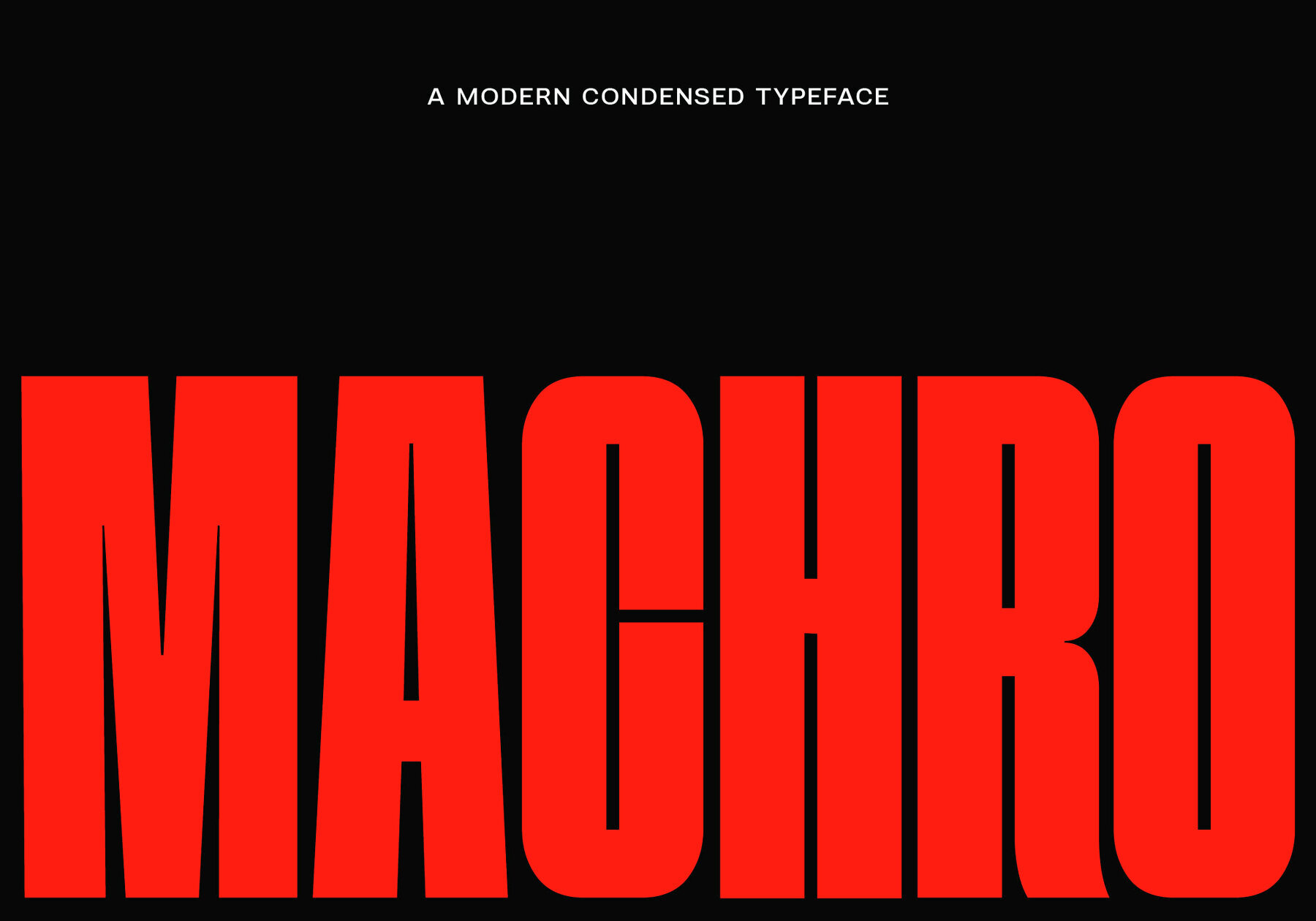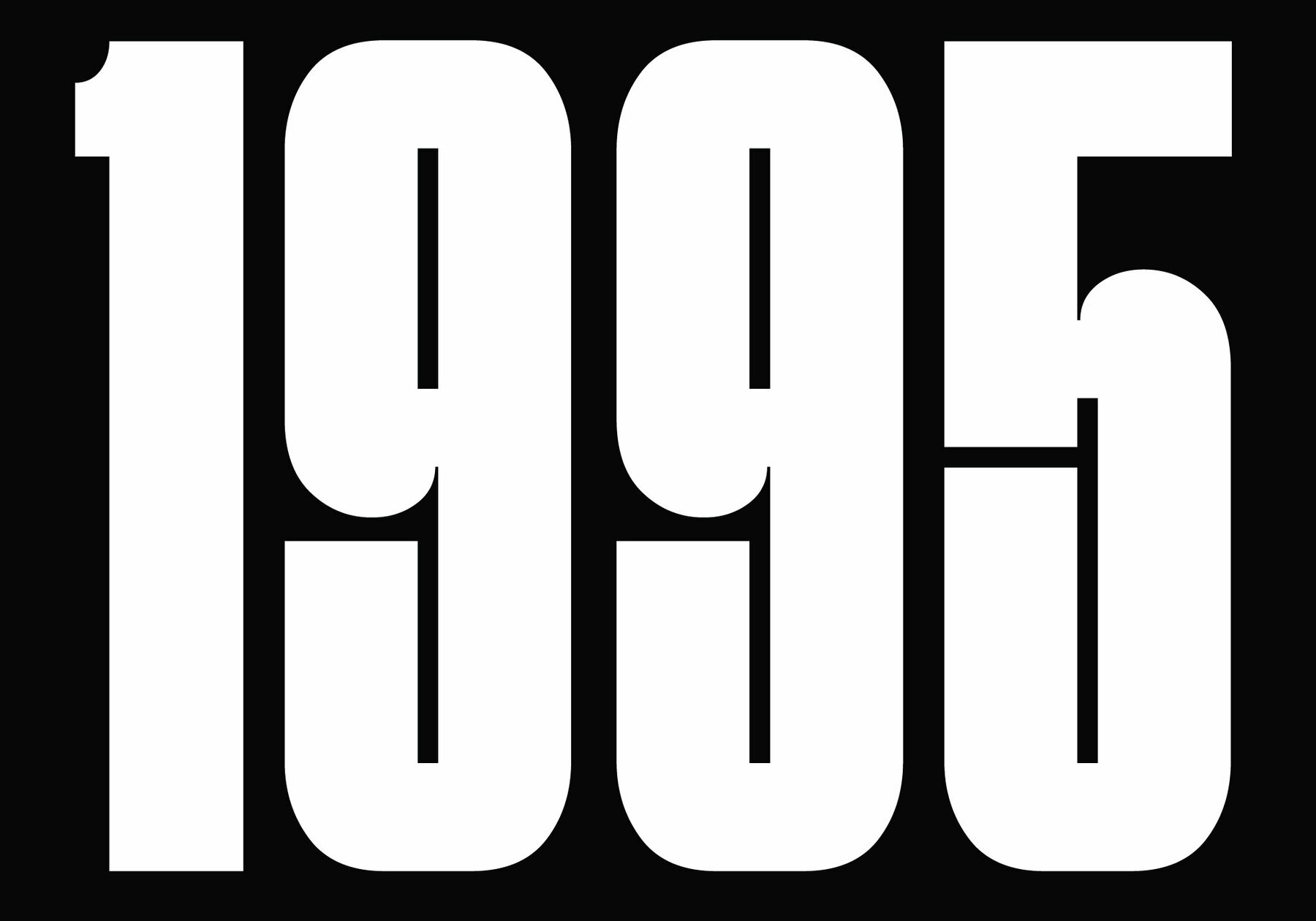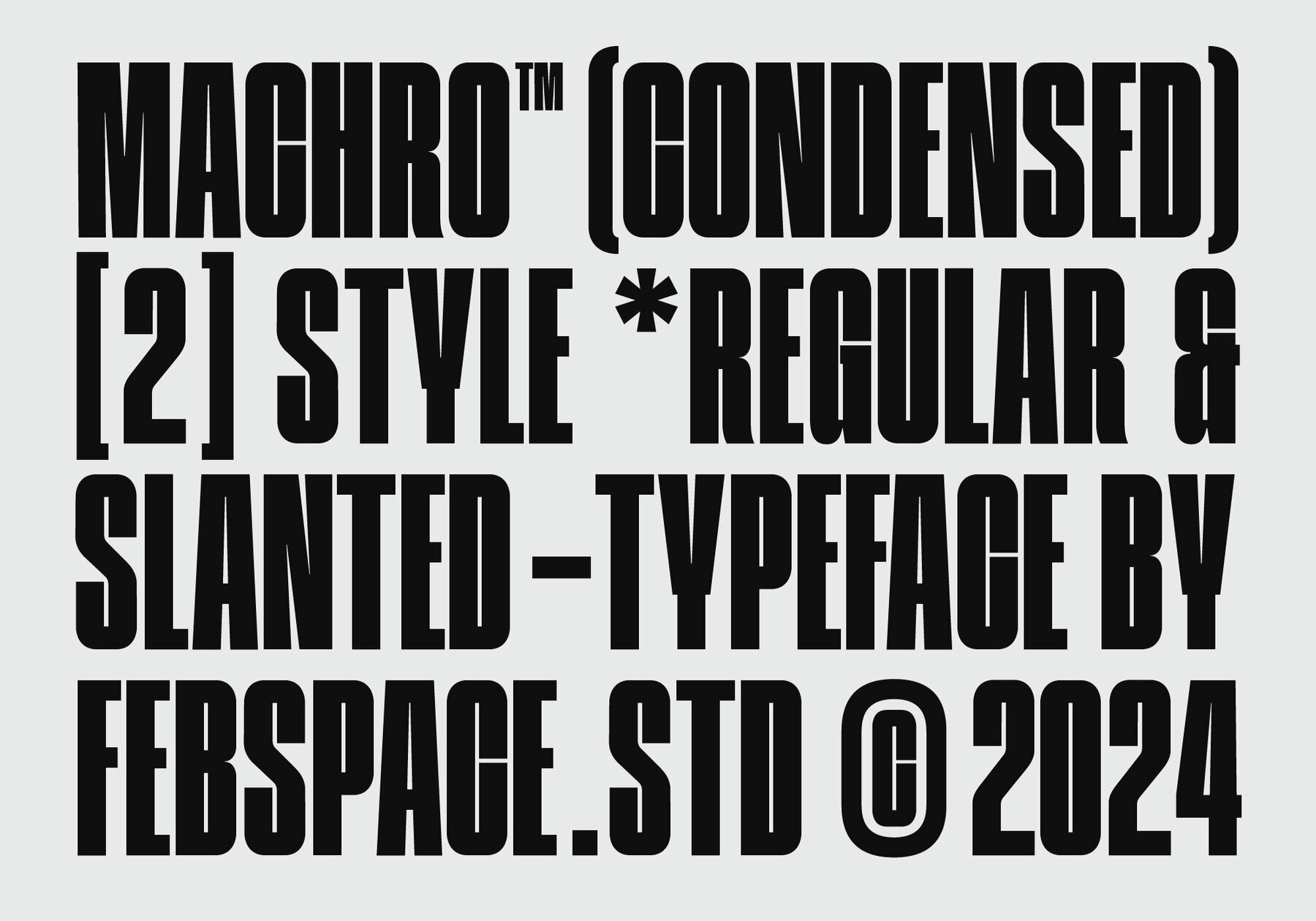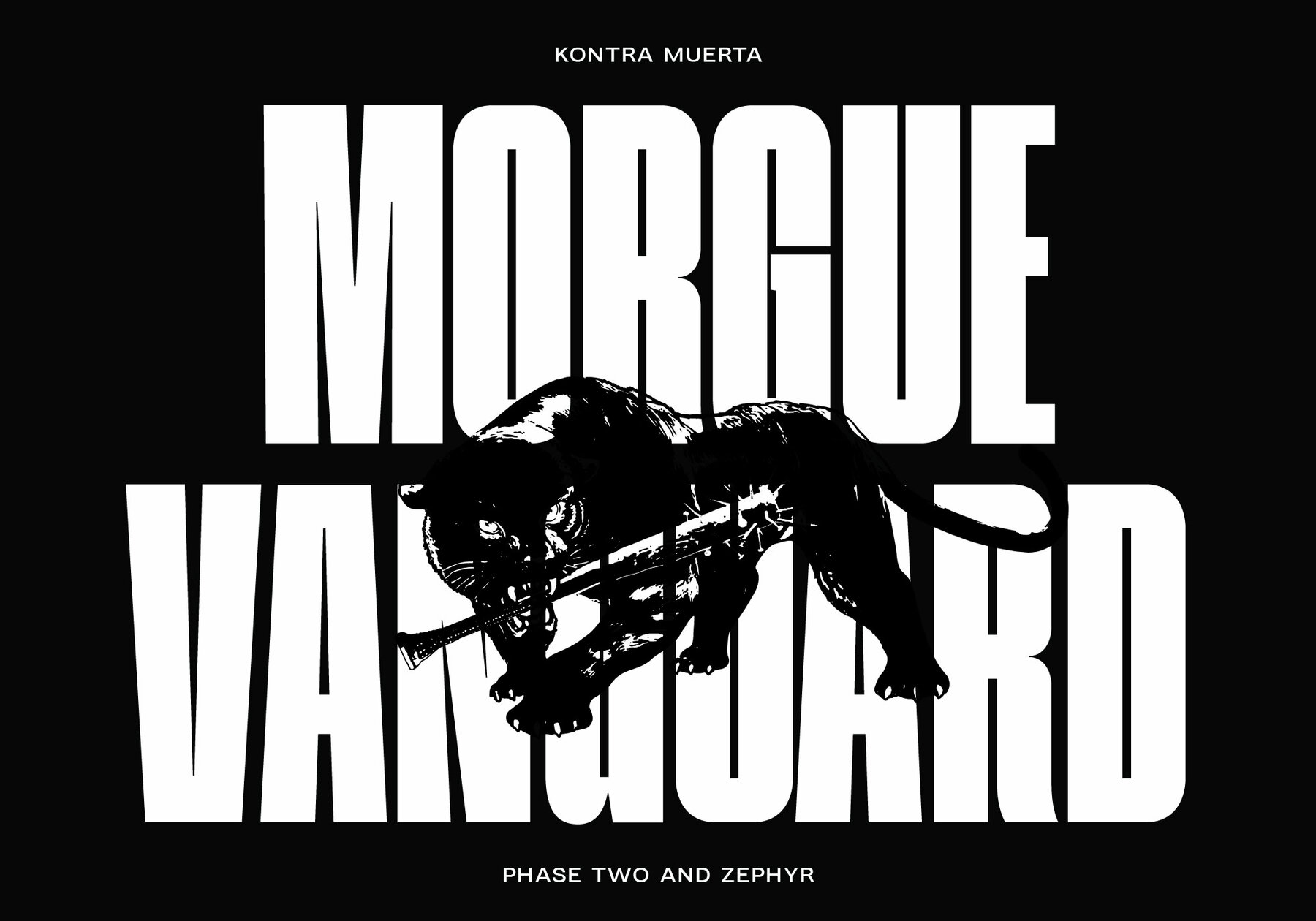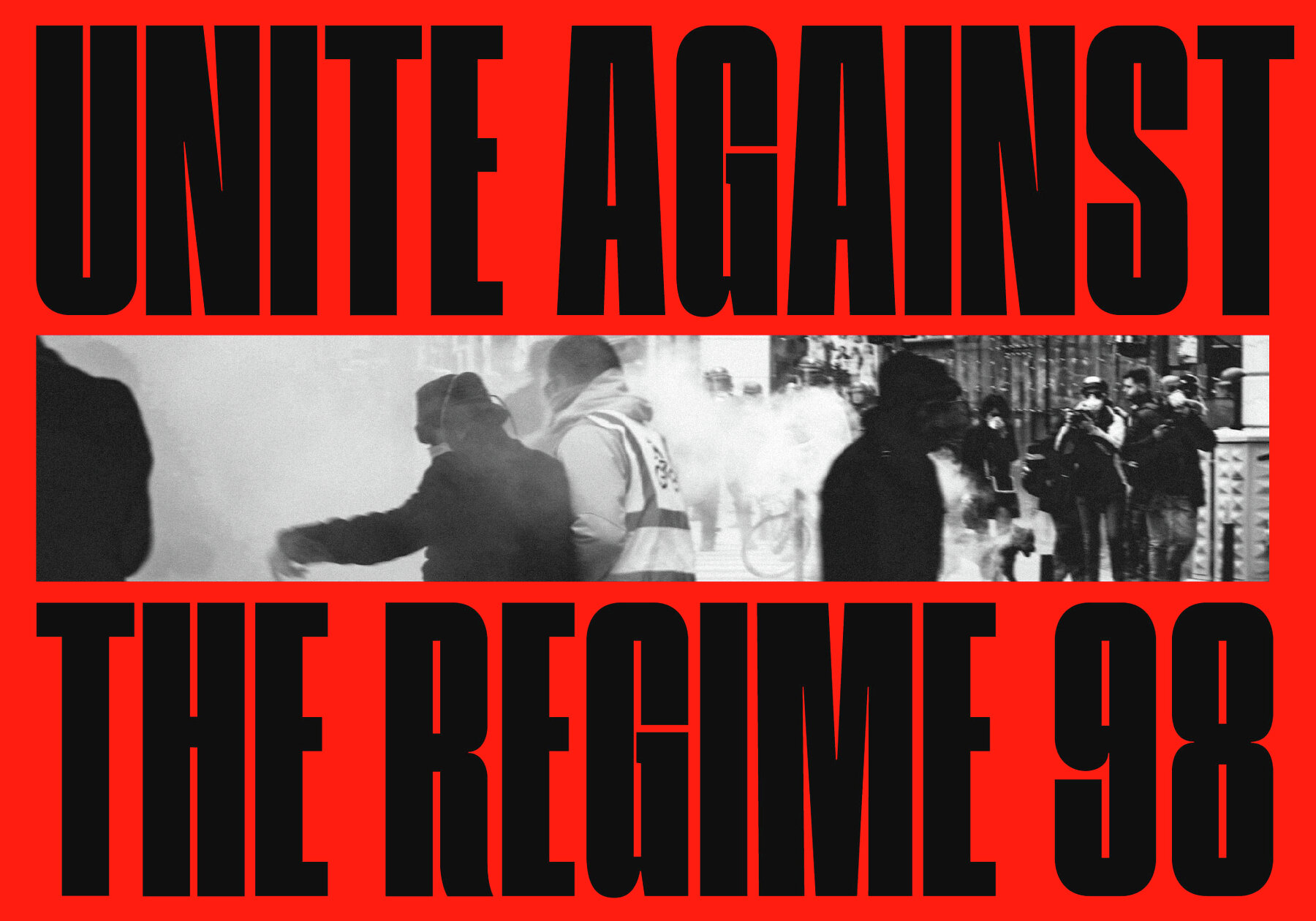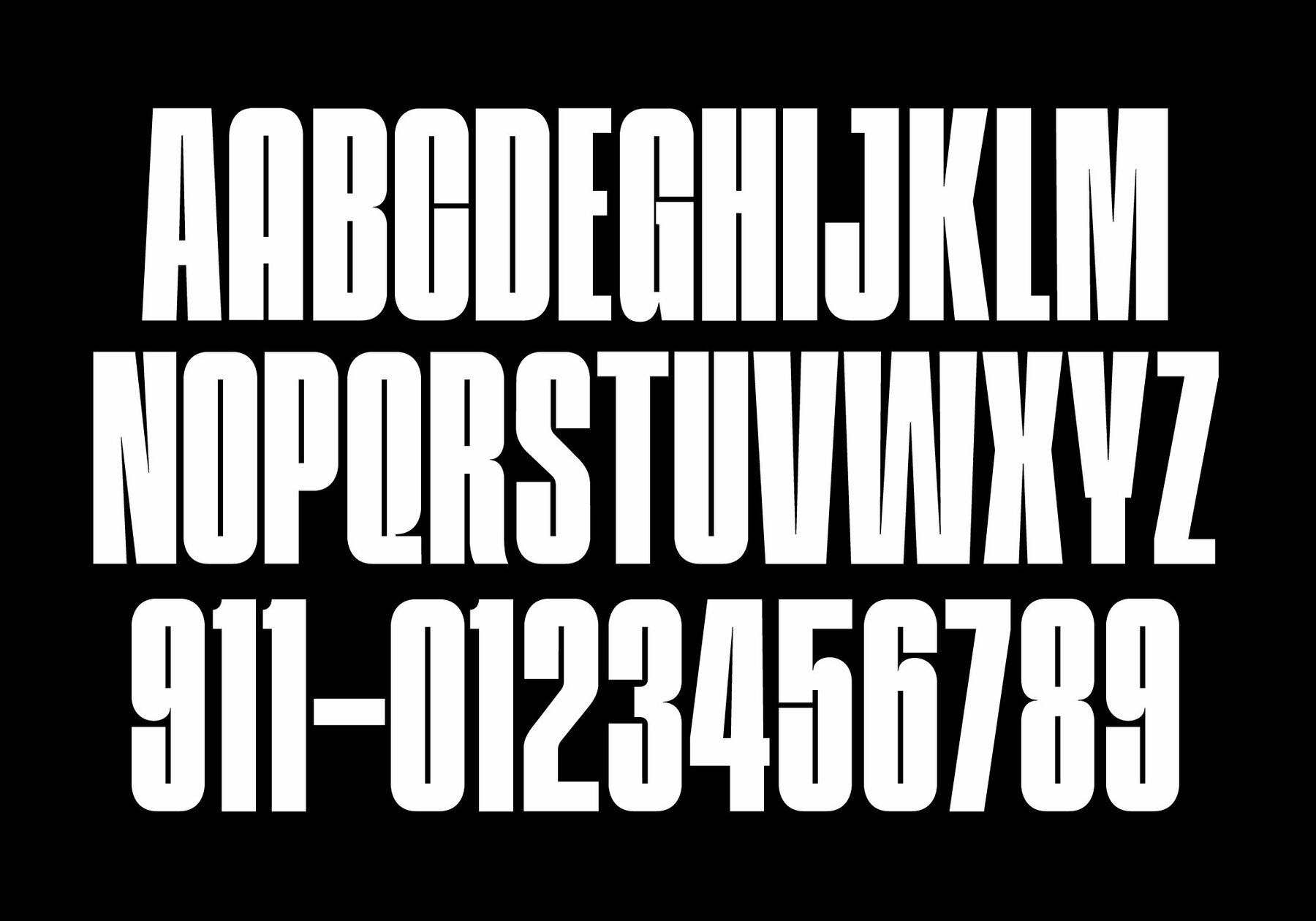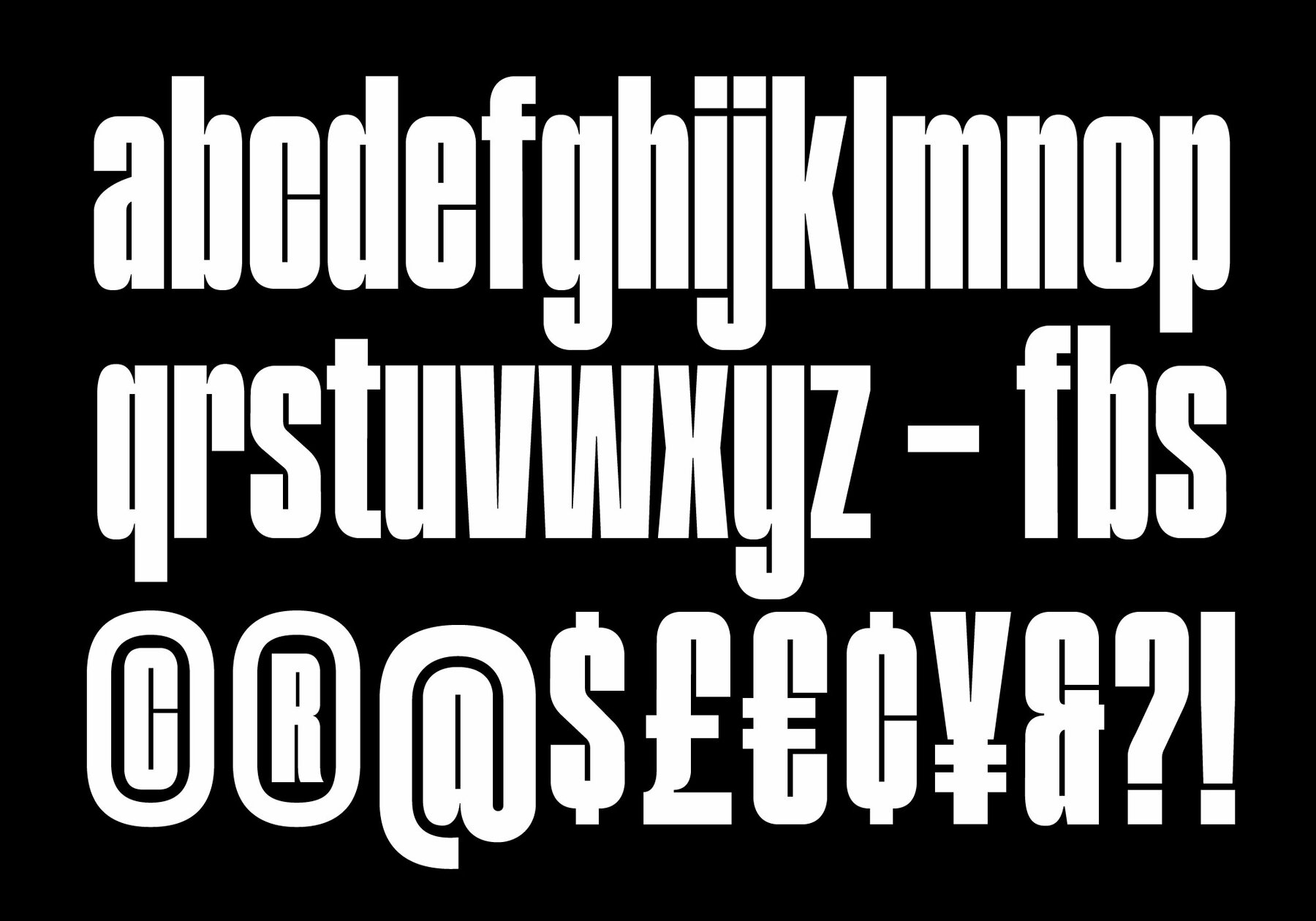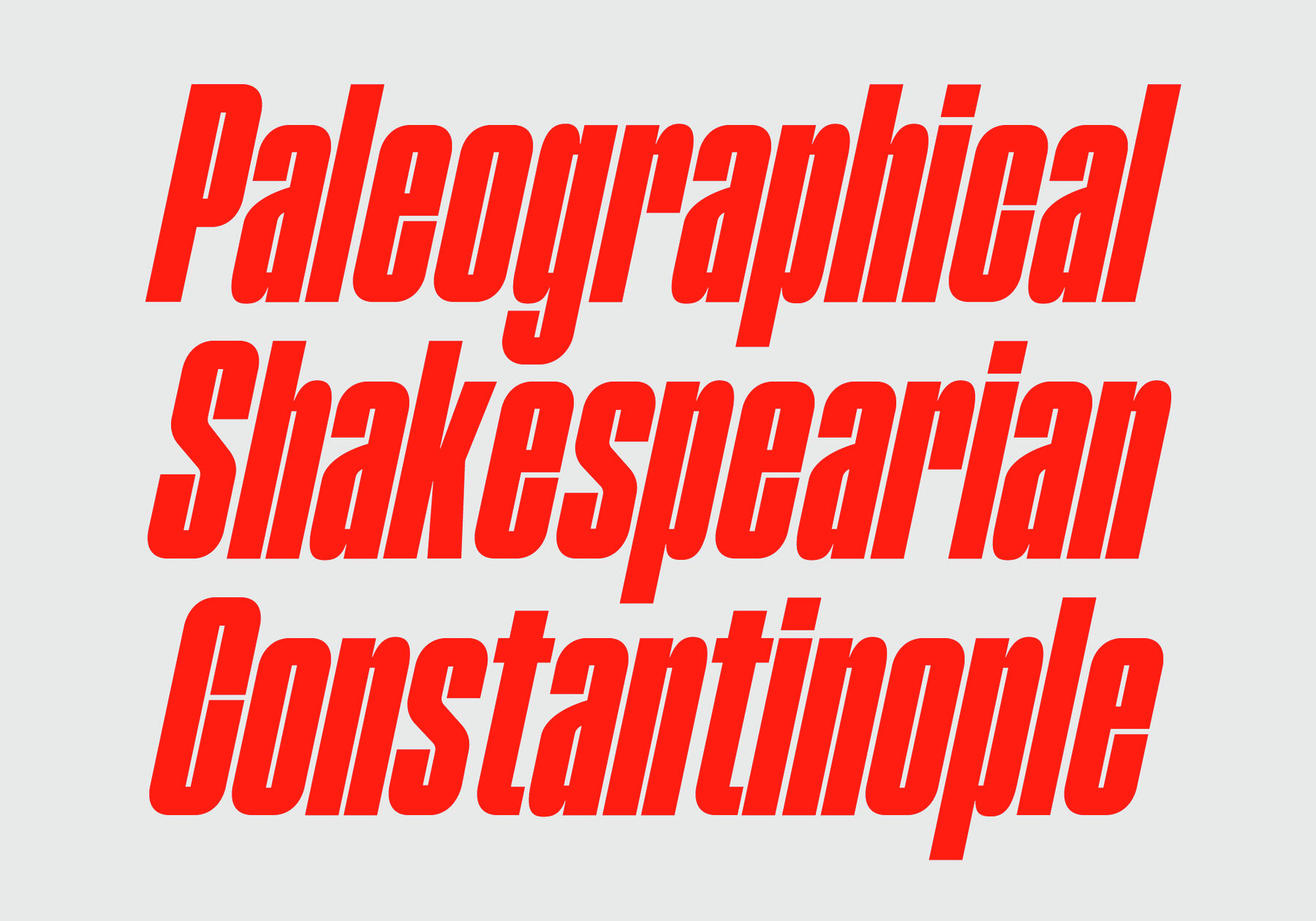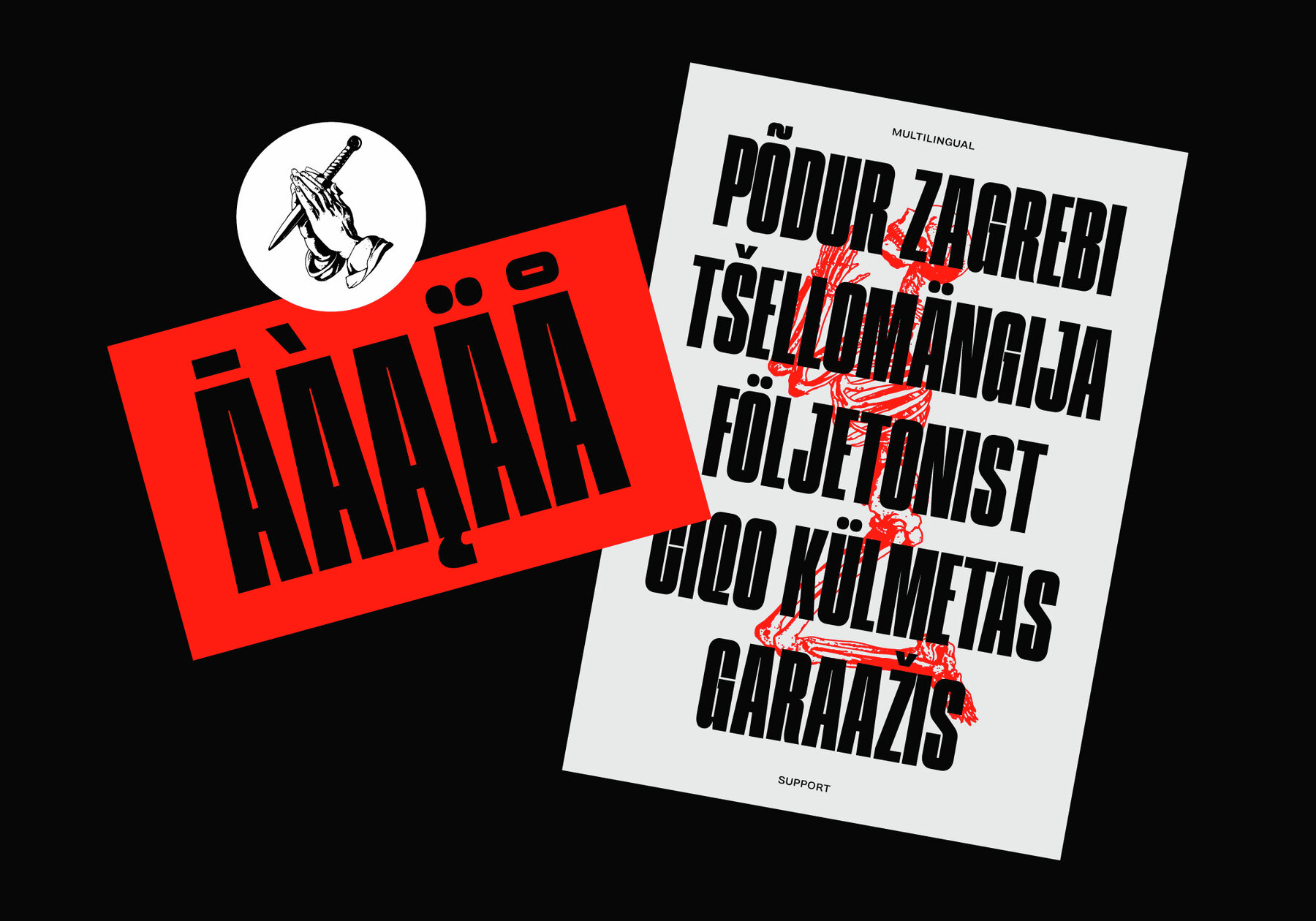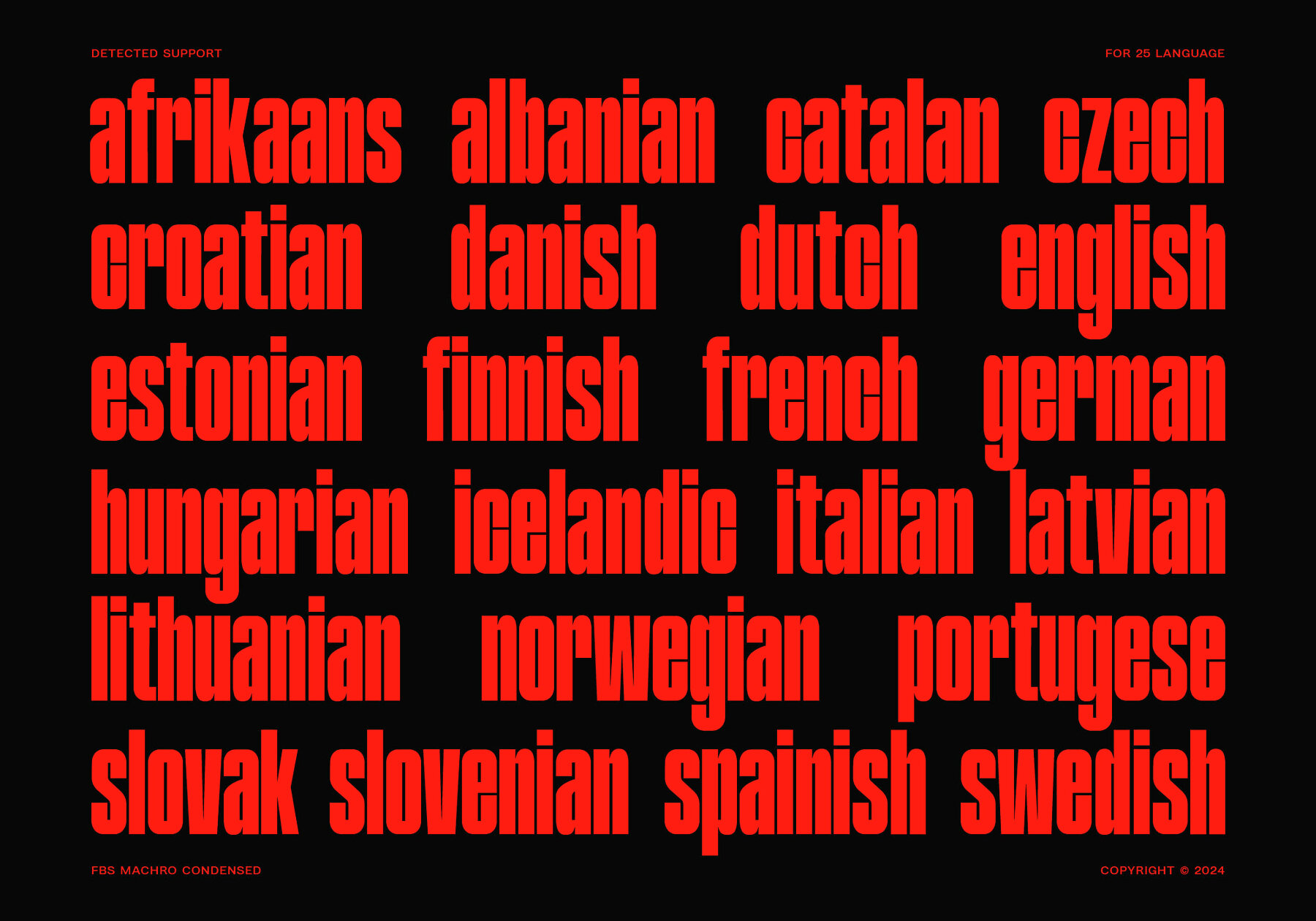
FBS Machro Font
FBS Machro is a modern Condensed font designed to convey strength and dynamism. Featuring boldcharacters, this typeface is perfect for highlighting key design elements in both print and digital media. Available in two styles : Regular and Slanted, FBS Machro Condensed offers versatility in application. The Regular style is ideal for body text and headlines, while the Slanted style adds an energetic and dynamic flair, making it perfect for grabbing attention. With its narrow proportions and clear details, this font is not only highly legible but also infuses a contemporary elegance into any project. Whether for branding, posters, or other graphic designs, FBS Machro Condensed is the ideal choice for creating a professional and captivating look.
Febspace Studio commands attention with a portfolio that merges bold typographic form with a refined sense of experimentation. Best known for headline typefaces that are both unconventional and meticulously structured, the studio’s work invites a second look—and often, a longer one. Their fonts often carry a r...